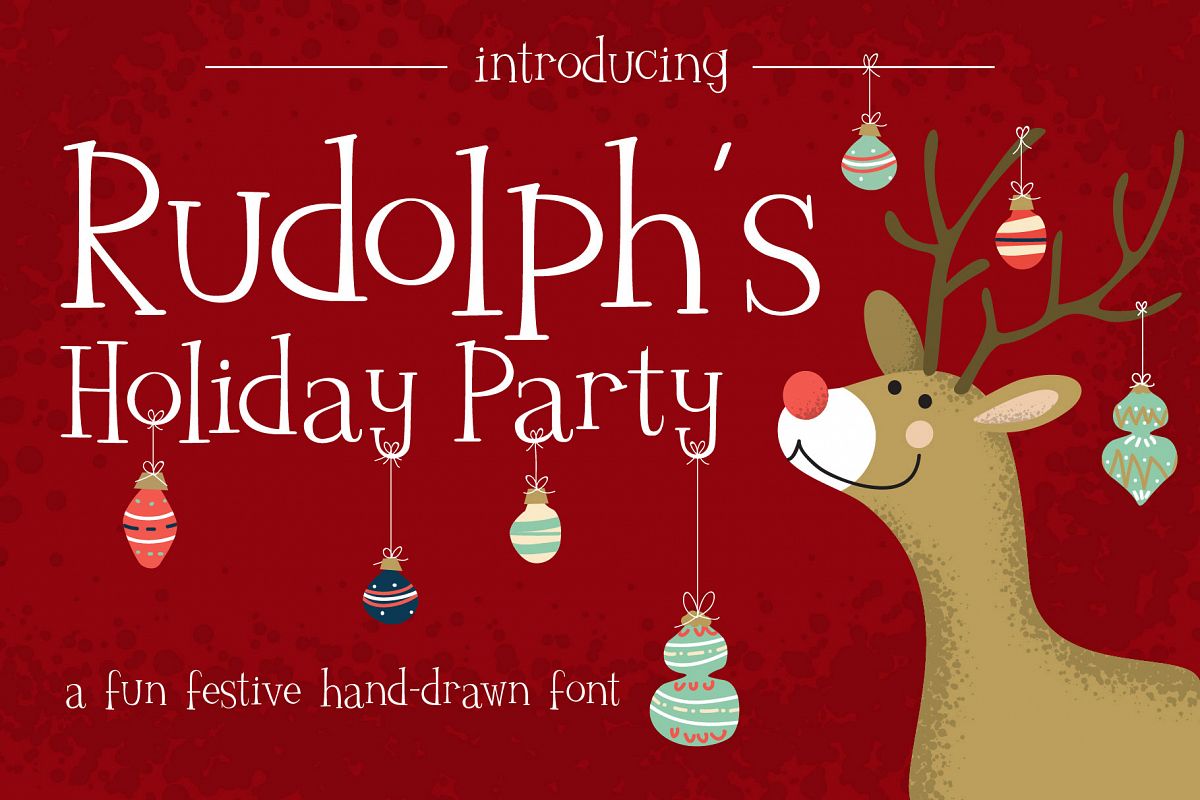
Rudolph's Holiday Party Font
Introducing, Rudolph's Holiday Party!. A festive slab font that's perfect for any holiday!. This PUA font is perfect for professional designers, social media, or crafters.